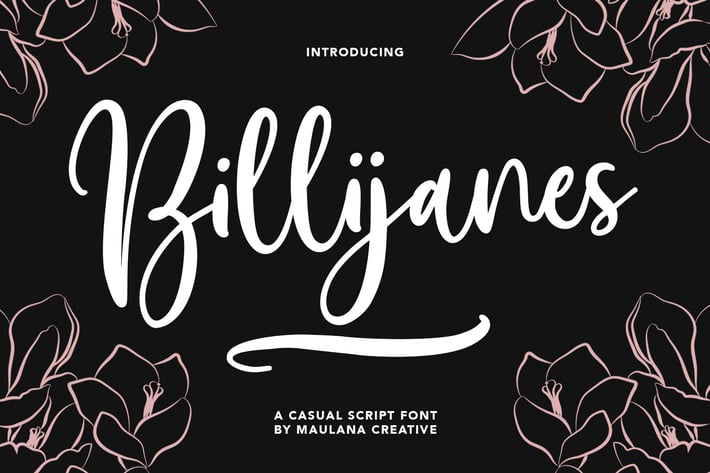
Billijanes Casual Script Font
Billijanes is a modern calligraphy script font. It's a clean store with high contrast line. It readable in short text. Billijanes includes opentype features Ligatures, lowercase alternates & extra swash. It support multilingual more than 100+ language. This font is good for logo design, Movie Titles, Books Titles and any awesome project you create. Make a stunning work with Billijanes script font.